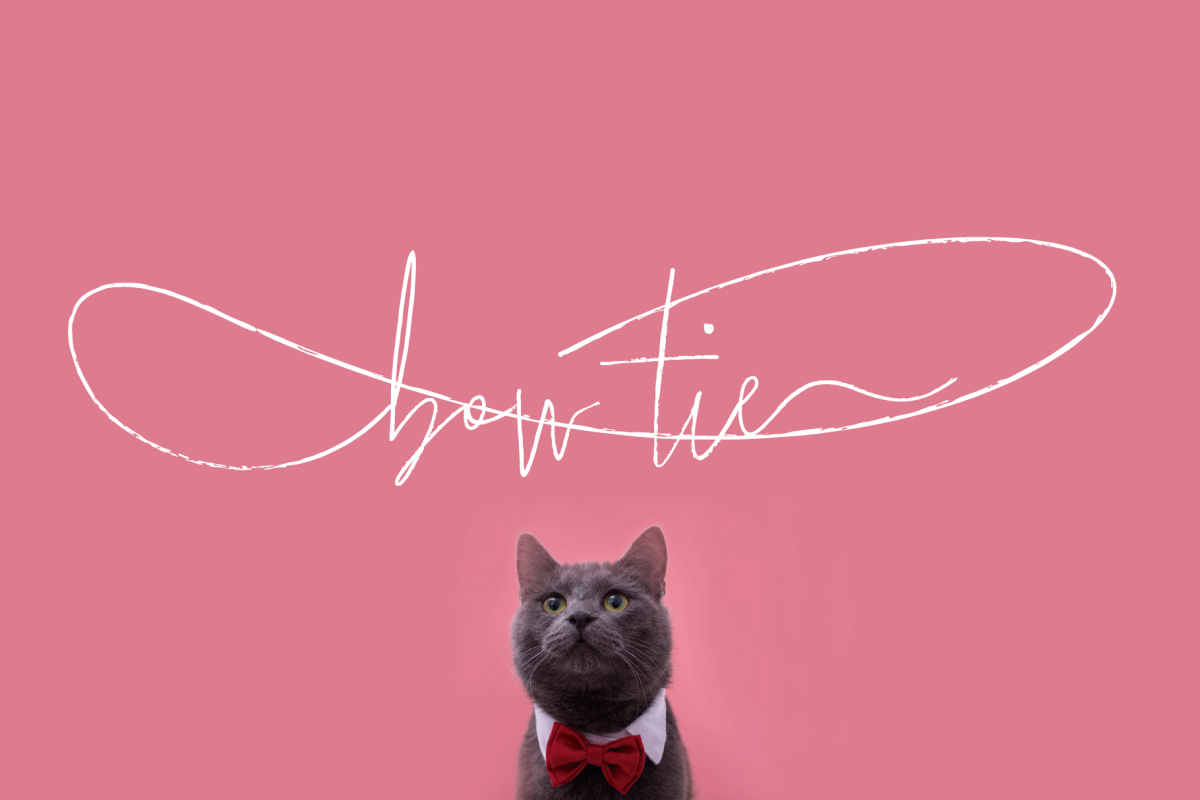
Bow Tie
Bow Tie, a slight textured, organic and elegant signature. This modern, stylish but legible script is handy for logo, poster, headlines, invitations, cards and all display needs. The OpenType Features are: stylistic alternates that cover all latin language and cyrillic, ligatures and discretionary ligatures.
1. Bow Tie - Upper and lowercase characters of basic latin/English, West European diacritics, central Europe, Baltic, Turkish, Romanian, Vietnamese, Cyrillic, numerals, punctuation, OpenType features like alternates, ligatures and extra ligatures
3. Bow Tie Ligatures and Ligatures1 - type any a-z lowercase or uppercase character to generate a ligature, in case your software doens't read opentype features. Otherwise you turn on "Discretionary Ligatures" in Bow Tie and you have access to them, like alternates too.
4. Bow Tie Inicial Swash - type any a-w lowercase character to generate a inicial swash and then any letter of Bow Tie and will give you a swash (left side of letter) connected with the letter. ***(see presentations/posters)***
5. Bow Tie Final Swash - type any letter of Bow Tie and then any a-t lowercase character to generate a final swash and will give you a swash (right side of letter) connected with the letter. ***(see presentations/posters)***
6. Bow Tie Swash - type any a-f lowercase character to generate swash.